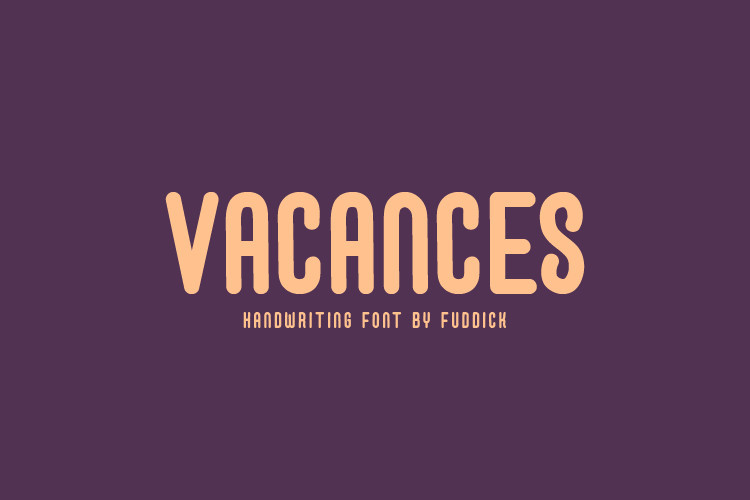
Vacances Font
Vacances Display Font, You can use it as a logo, badge, insignia, packaging, headline, poster, t-shirt/apparel, greeting card, and wedding invitation.